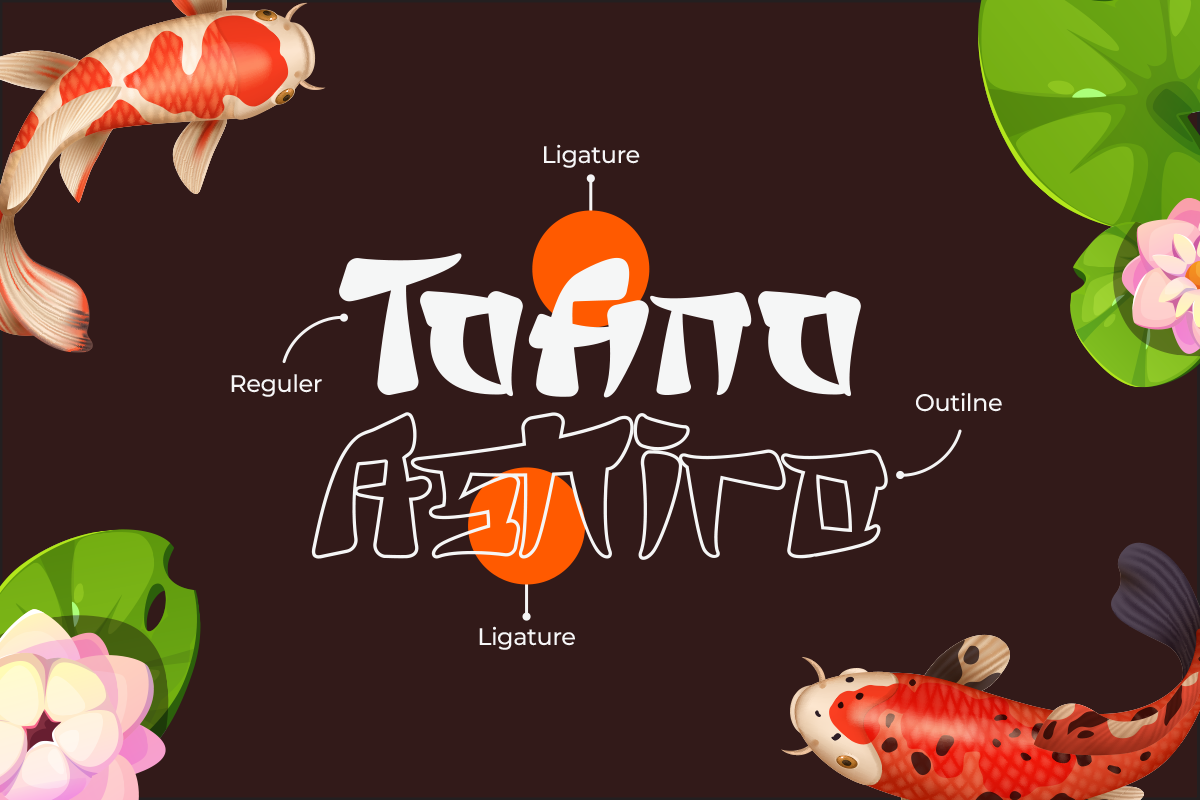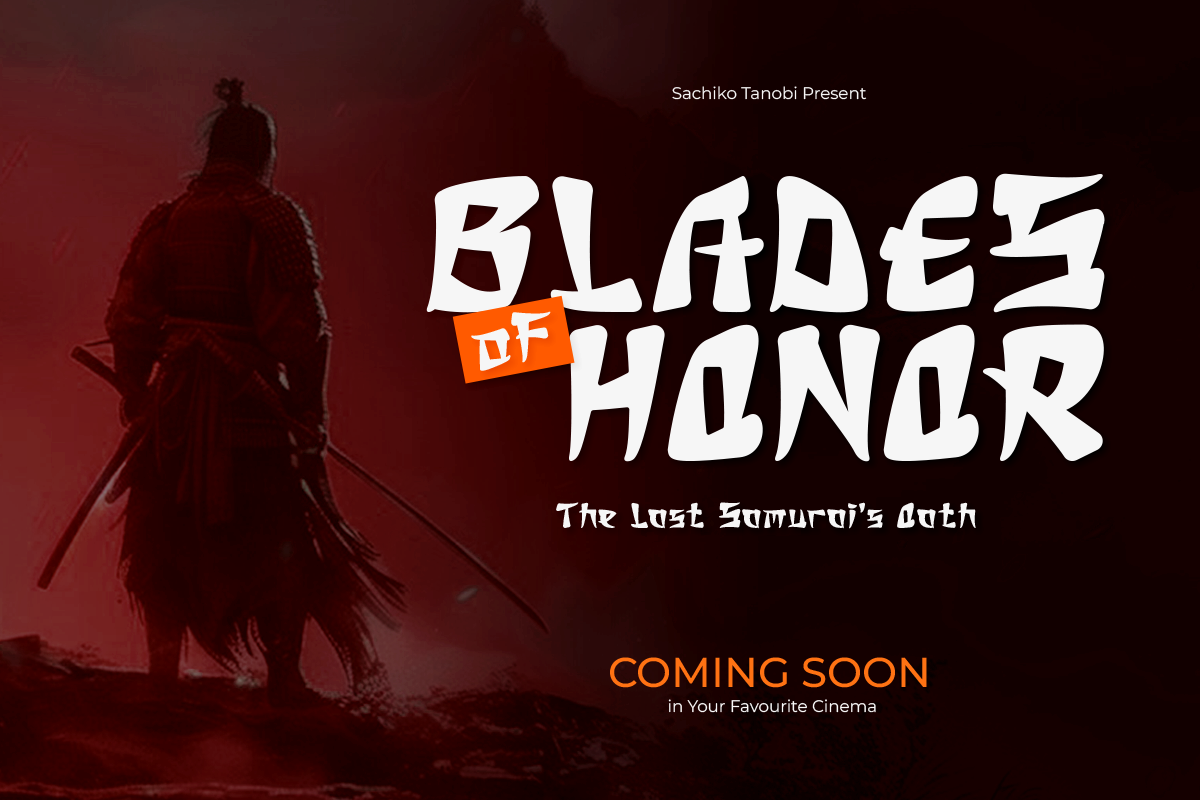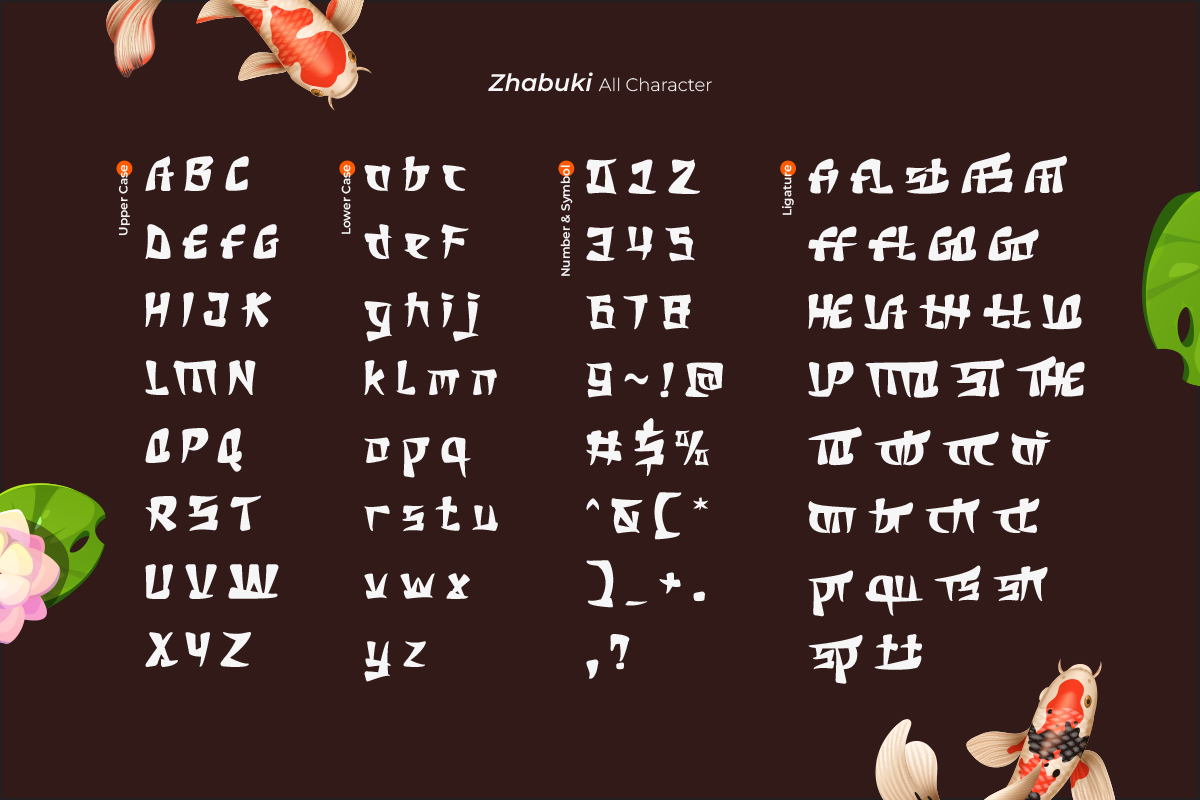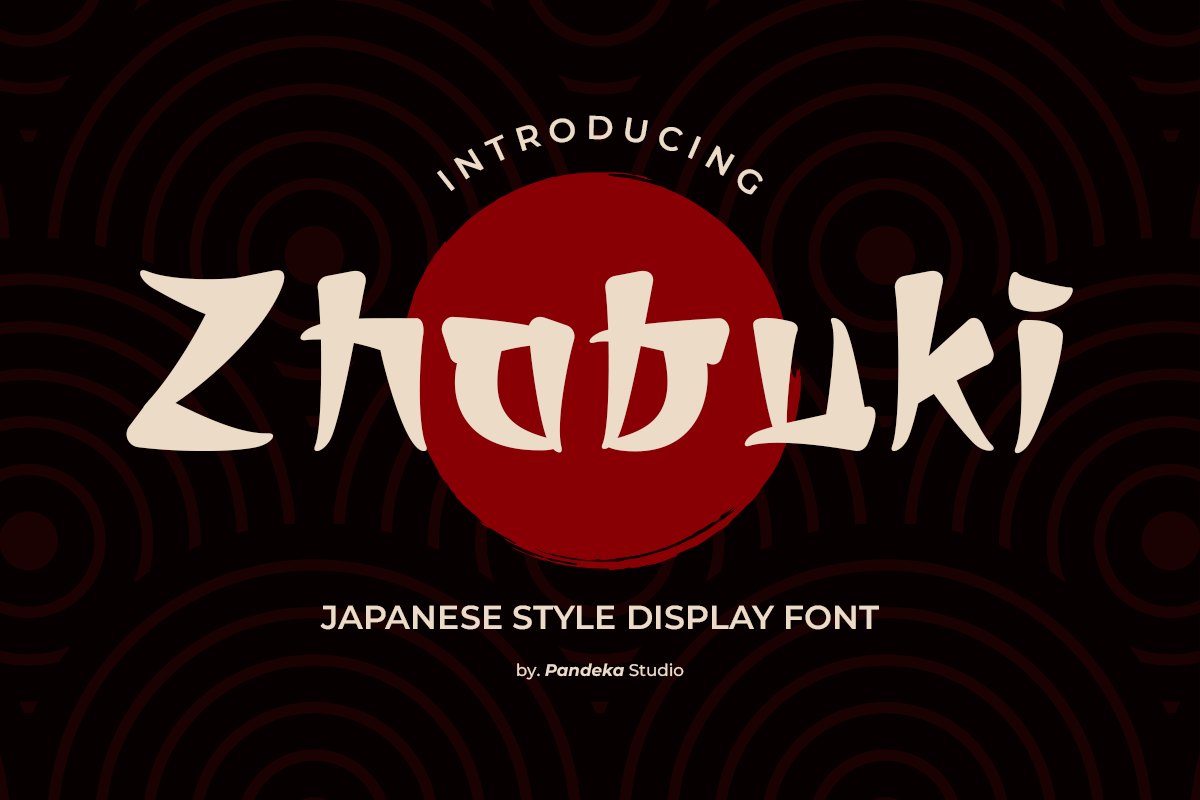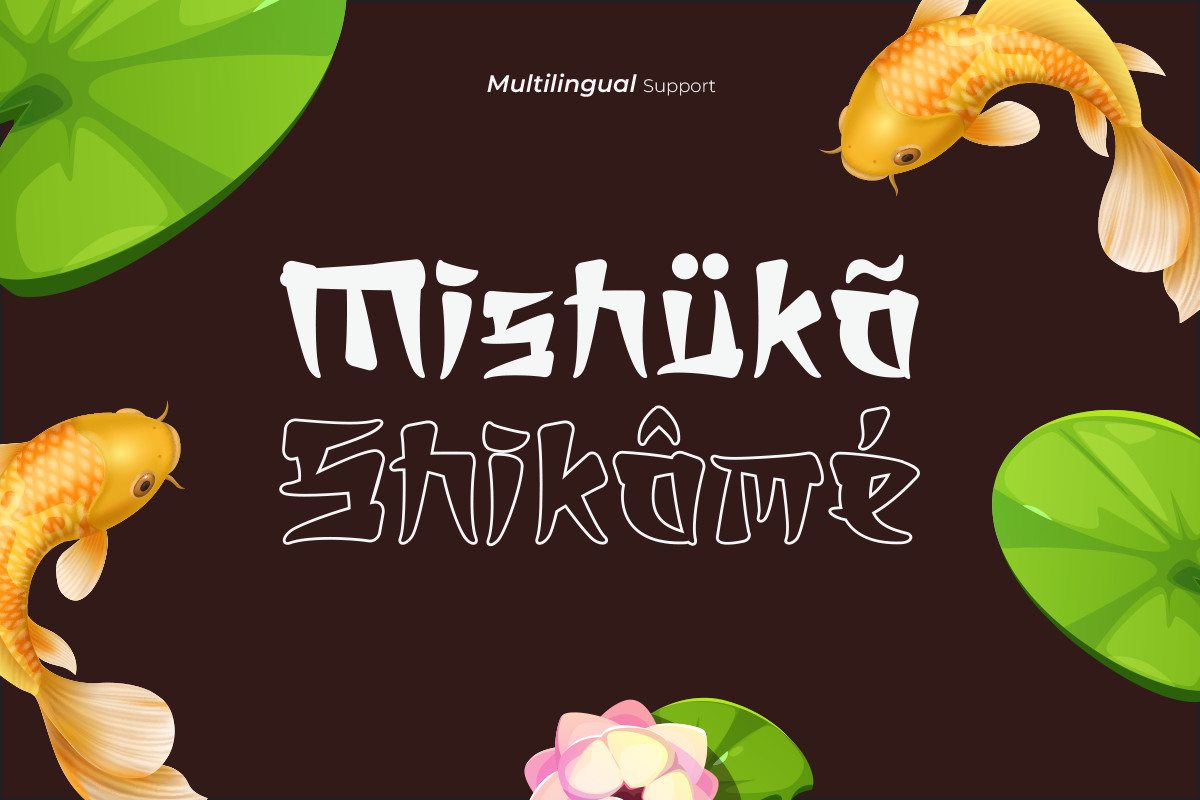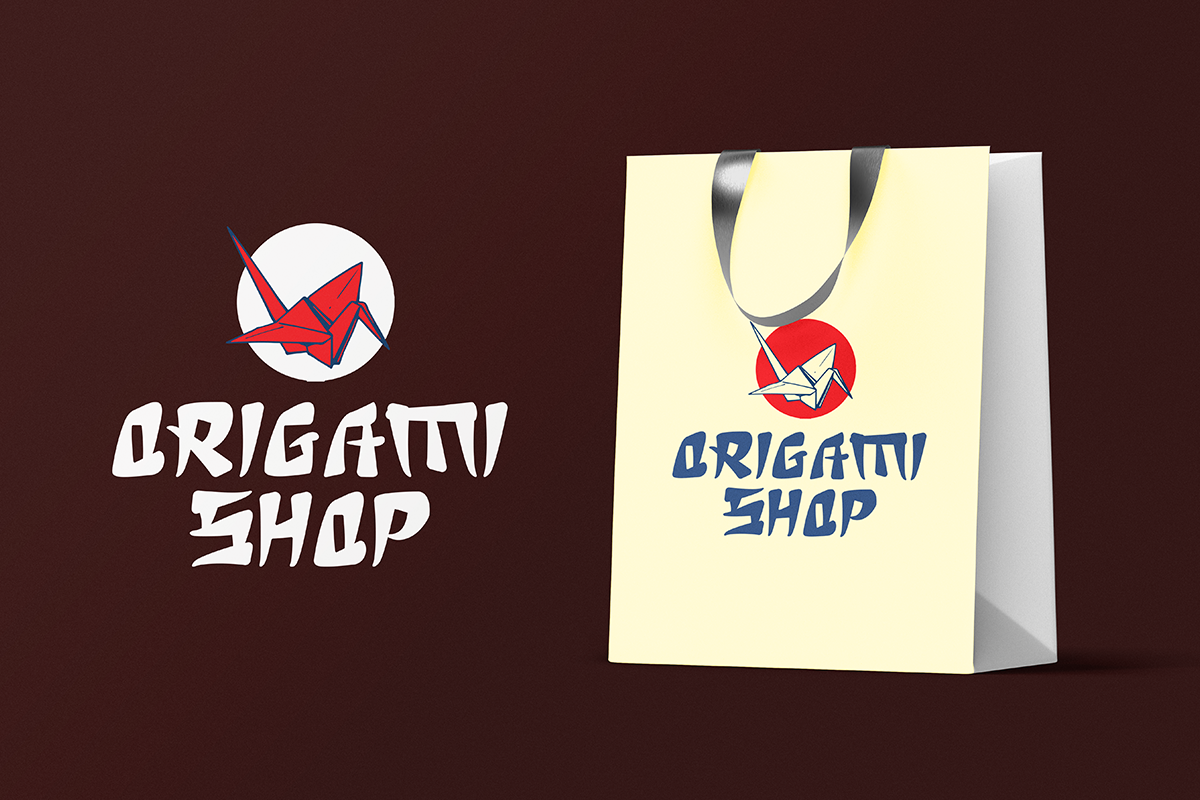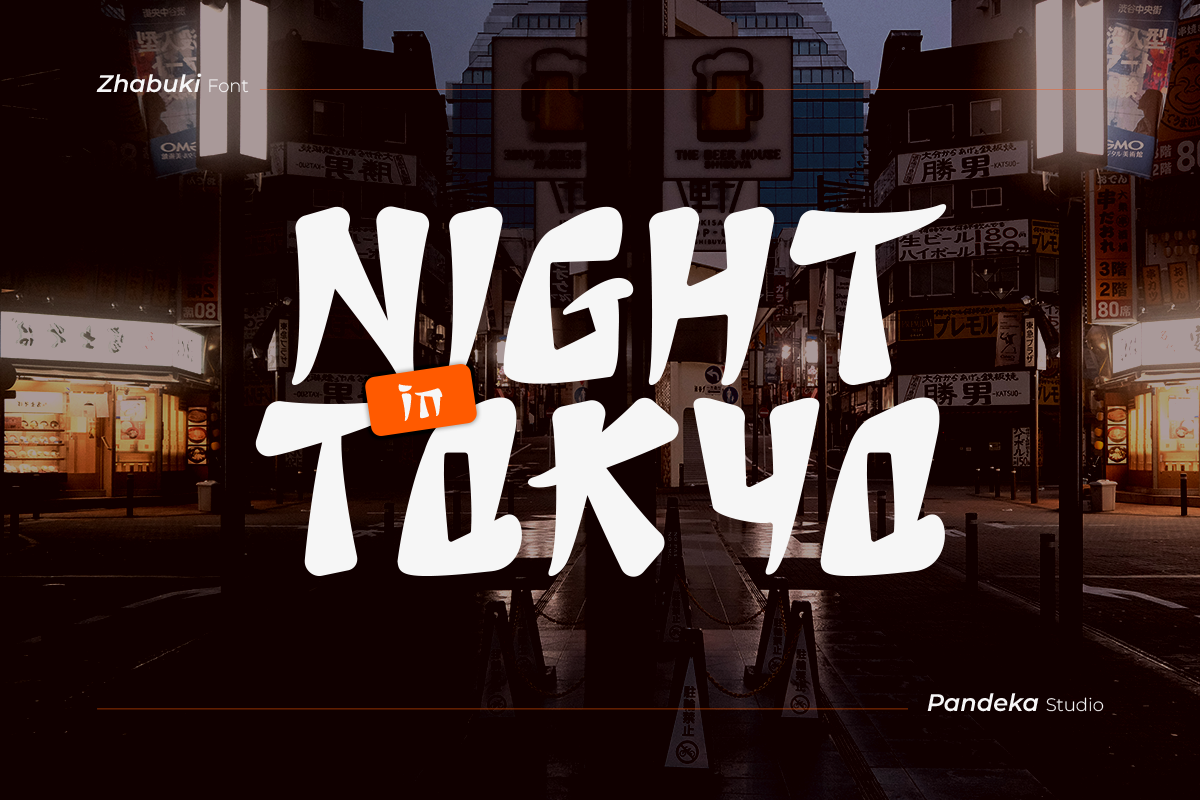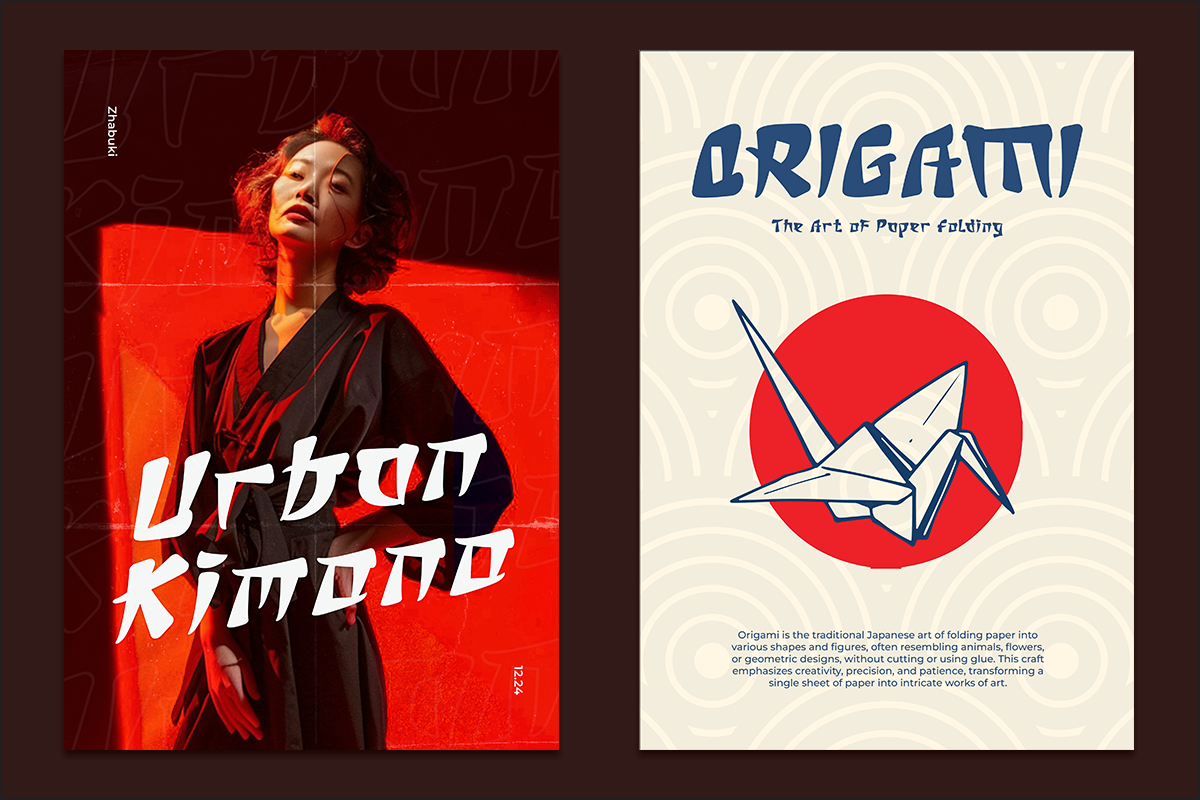
Zhabuki - Japanese and Korean Font
Introducing Zhabuki, a stunning display font inspired by the beauty of Japanese and Korean aesthetics. Combining traditional East Asian charm with a modern touch, Zhabuki is the perfect choice for bringing authentic Asian vibes into your designs.
Each letter in Zhabuki is carefully crafted, blending traditional artistic elements with contemporary styles. With 30+ unique ligatures and alternates, you can easily create distinctive and captivating typography compositions. This font is ideal for branding, posters, packaging, social media designs, and so much more!
What makes Zhabuki even more special is its 30+ unique ligatures, multilingual support, allowing you to communicate your message effectively to a global audience.
- 2 Styles: Regular and Outline
- Full Character Set: Uppercase, lowercase, numbers, symbols, and punctuation
- 30+ Unique Ligatures for creative and unique combinations